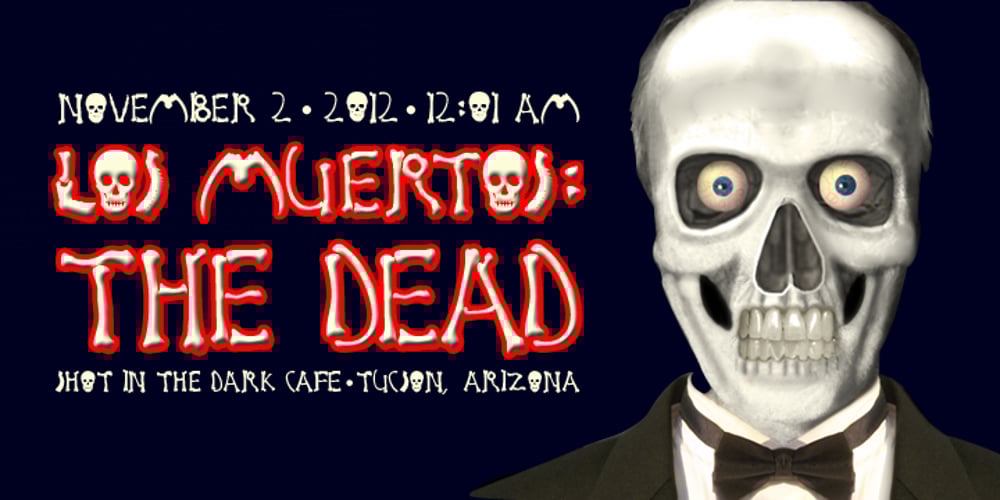
Los Muertos Font Family was designed by Randy Harris and published by Just My Type. Los Muertos contains 1 styles and family package options. Happy Halloween (and All Souls Day and Day of the Dead)! I’ve seen other fonts made up of bones of various kinds, but none with this variety. Henry Gray’s Anatomy of the Human Body (the book, not Grey’s Anatomy, the TV series) was heavily scoured to find more unusual bones shaped like letters. You’ll find Los Muertos both fun and appropriate for the up-coming holidays. (Uppercase is Solid, lowercase is Outline).